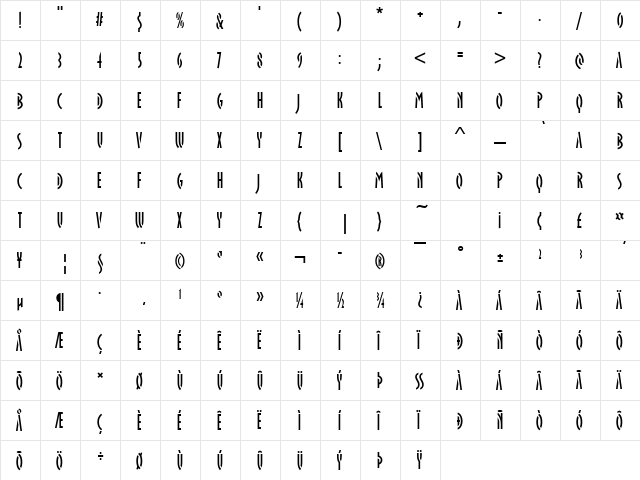
Becker Oklahoma Stencil Regular
Design Context for Becker Oklahoma Stencil Typeface
Becker Oklahoma Stencil has the rough pragmatism of spray-painted stencil signage, adding a raw, street-level authenticity to designs.
Ideal for industrial branding, streetwear, military-adjacent aesthetics, and urban signage projects.
Pro Tip: Pair Becker Oklahoma Stencil with raw, utilitarian design elements — exposed concrete textures, flat colour, and minimal ornamentation suit it well.